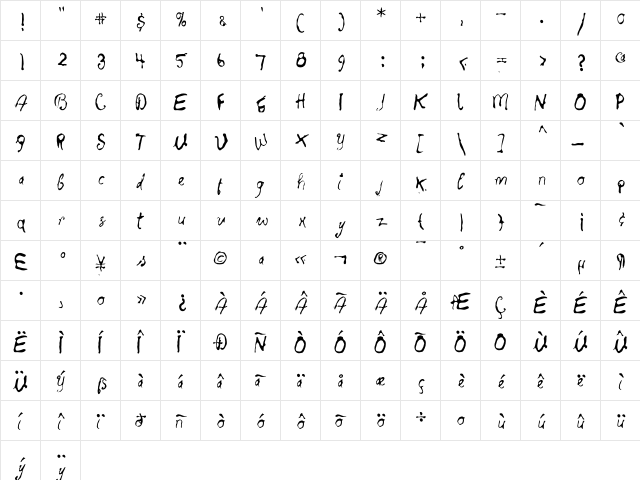
InAspartame Regular
Design Context for InAspartame Typeface
InAspartame is a composed and adaptable typeface that performs quietly and consistently across a wide range of design contexts.